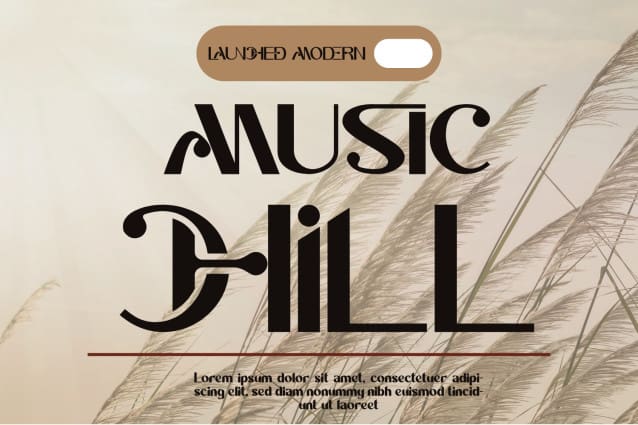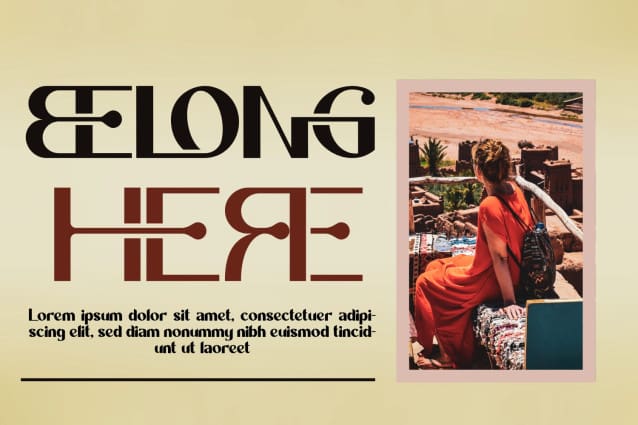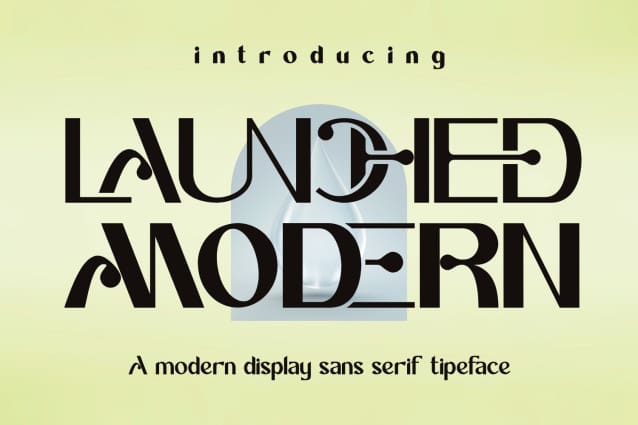
Launched Modern Font
LAUNCHED MODERN FONT embodies bold elegance and a touch of modern flair, this sans-serif typeface stands out as a beacon of creativity in the design world. This font is designed to capture attention and leave a lasting impression across various design projects. The font is suitable for any branding project like poster, logo, sport, and many more. Outstanding in a wide range of contexts.
LAUNCHED MODERN was built with OpenType features and includes 100 ligatures, alternate, numbers, punctuation, and it also supports other languages.
AC AD AL AN AR AS AT AU AV BE CA CE CH CO CT DE DI EA EC ED EE EL EM EN EP ER ES ET FE FO FR GE HA HE HI HO IE IC IL IN IO IR IS IT JU KE LA LE LI LL LO LY MA ME MI NC ND NE NG NO NT NS OC OF OM ON OO OP OR OT OU OW PA PR RA RD RE RI RO RS RT SE SH SI SO SS ST TA TE TH TI TO TR TT UM UN UR VE WI WO